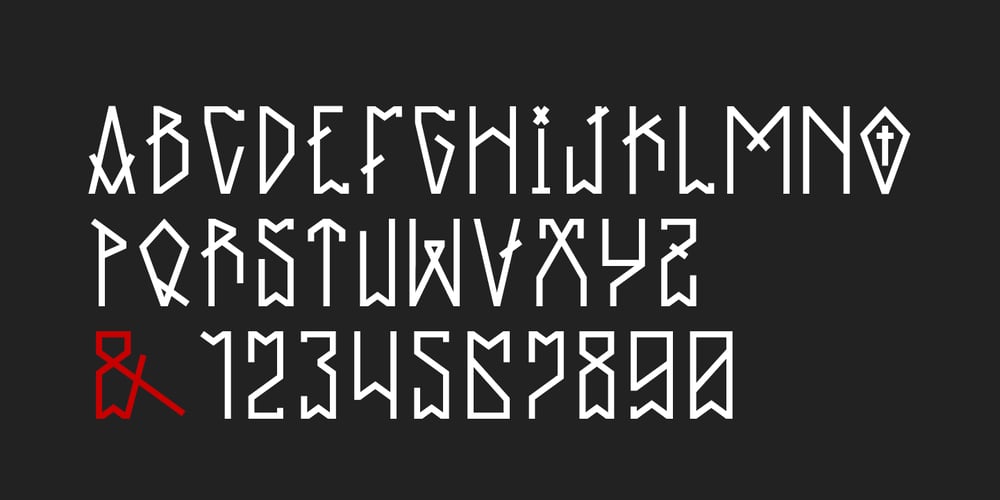
Vandalismo 26 Font Family was designed by Bruno Costa and published by CostaType. Vandalismo 26 contains 1 styles and family package options. The type “Vandalismo 26” is a tribute to the calligraphy style that ‘screams’ over the front of the buildings in the center of São Paulo/Brazil. This underground calligraphy, known as “pichação” or “pixo”, is a movement that expresses disagreement and rejection against the system. For some critics, this “vandalism” is considered to be the most disruptive and conceptual contemporary art today.It is a type to be used in headlines. Vandalismo 26 is a mix of the chaotic pixo style representing the nonconformity of a generation. It is a protest to the system in a typographic format.